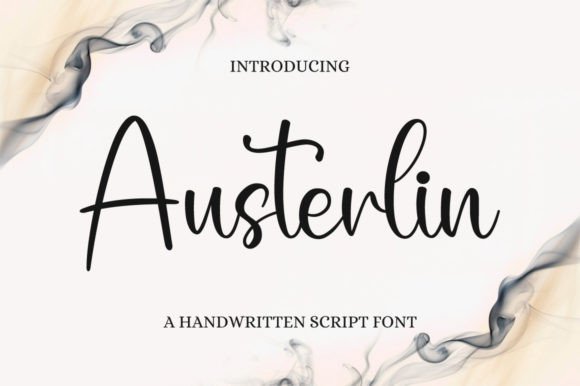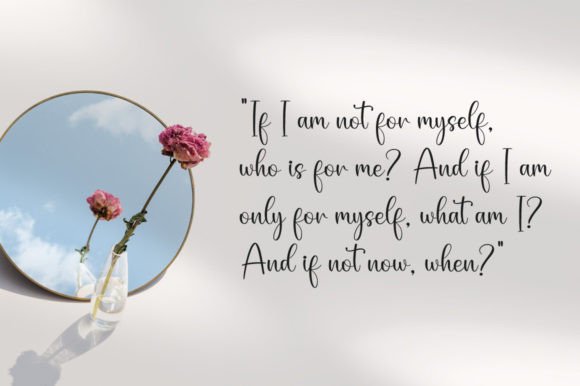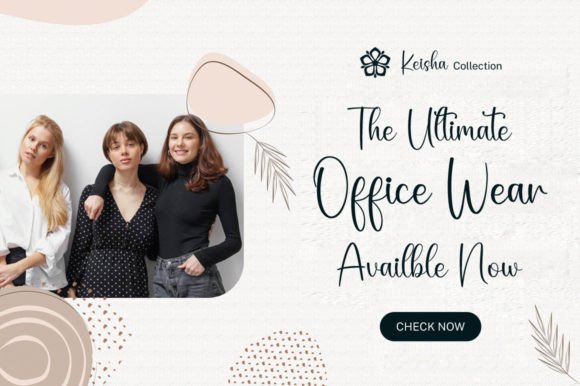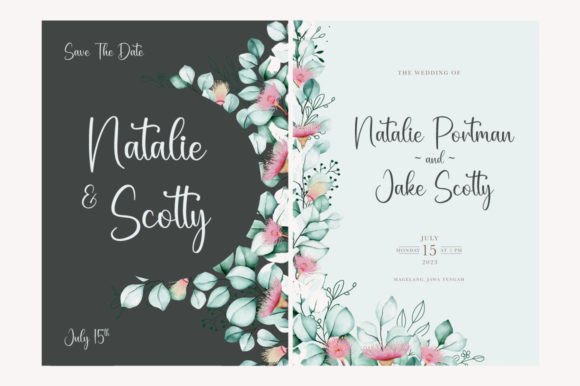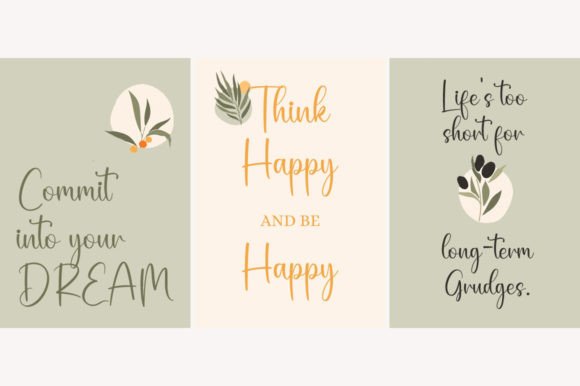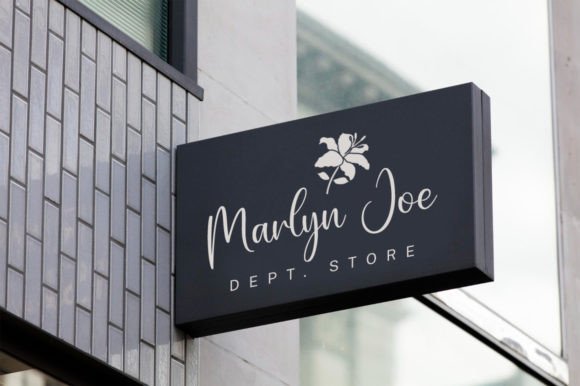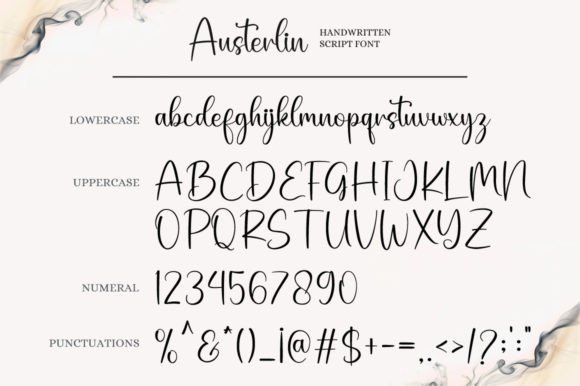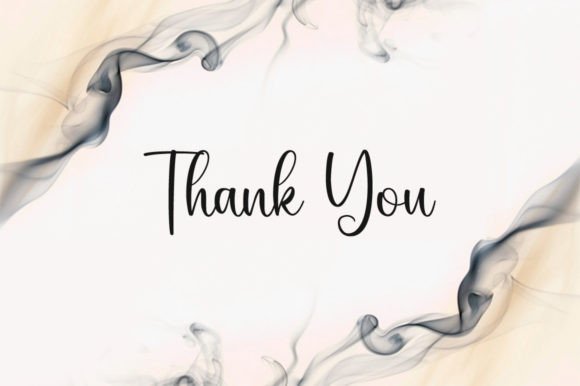
Austerlin Font
Austerlin Font – Timeless Handwritten Script Download
The Austerlin Font download is a beautiful handwritten typeface that captures timeless charm and elegance. With its smooth curves and well-crafted strokes, this font is designed to bring authenticity and creativity into every project. Whether you’re working on a personal design or professional branding, Austerlin provides the perfect blend of sophistication and style.
Elegant Handwritten Style
The Austerlin Font download features a flowing handwritten design that feels natural and refined. Each character is carefully created to balance clarity and artistry, making it suitable for a wide variety of projects. Its graceful look is perfect for designs that need a personal and warm touch while still appearing professional.
Perfect for Logos and Branding
When it comes to building a strong visual identity, typography matters. The Austerlin Font download is an excellent choice for creating eye-catching logos and branding materials. Its timeless handwritten style makes it ideal for businesses in fashion, beauty, lifestyle, and creative industries. By using Austerlin, you ensure that your brand communicates elegance and authenticity.
Versatile Across Projects
One of the strongest features of the Austerlin Font download is its versatility. It works beautifully on posters, invitations, greeting cards, product packaging, and digital content. Designers love its adaptability because it enhances both print and digital formats without losing readability or style. From inspirational quotes to social media posts, Austerlin adds sophistication to every design.
Timeless Appeal and Readability
Handwritten fonts often bring emotion and personality into designs. The Austerlin Font download achieves this by combining a classic handwritten look with modern design principles. Unlike overly decorative fonts, it maintains readability while still expressing elegance. This balance ensures your work will stand out without overwhelming the viewer.
Why Choose Austerlin Font?
There are countless handwritten fonts available, but the Austerlin Font download stands out thanks to its timeless charm and broad usability. Its elegant curves and balanced design make it suitable for both casual DIY projects and high-end professional branding. With Austerlin, you don’t just add text—you add personality and style.
Enhance Your Designs with Austerlin
Typography is one of the most powerful tools in design. By choosing the Austerlin Font download, you ensure your work carries elegance, emotion, and creativity. Whether you are crafting a logo, designing a quote, or building a brand, this font helps your message stand out beautifully.